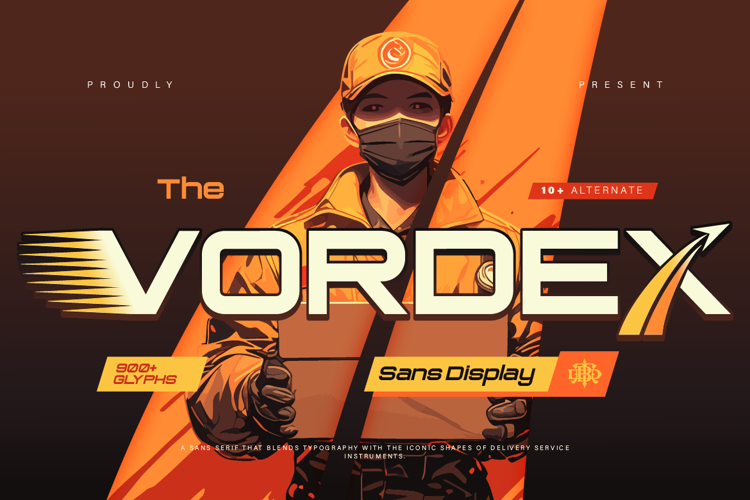
Meet Vordex, a bold and modern sans display font inspired by the fast paced world of logistics and delivery. Designed with strong geometric shapes and dynamic cuts, this font brings a sense of speed, efficiency, and reliability into your designs.
Perfect for adding motion and energy to your text just like a package moving fast to its destination.
With its clean yet playful character, Vordex delivers a unique balance between professional and fun, making your design stand out while still looking sharp and modern.